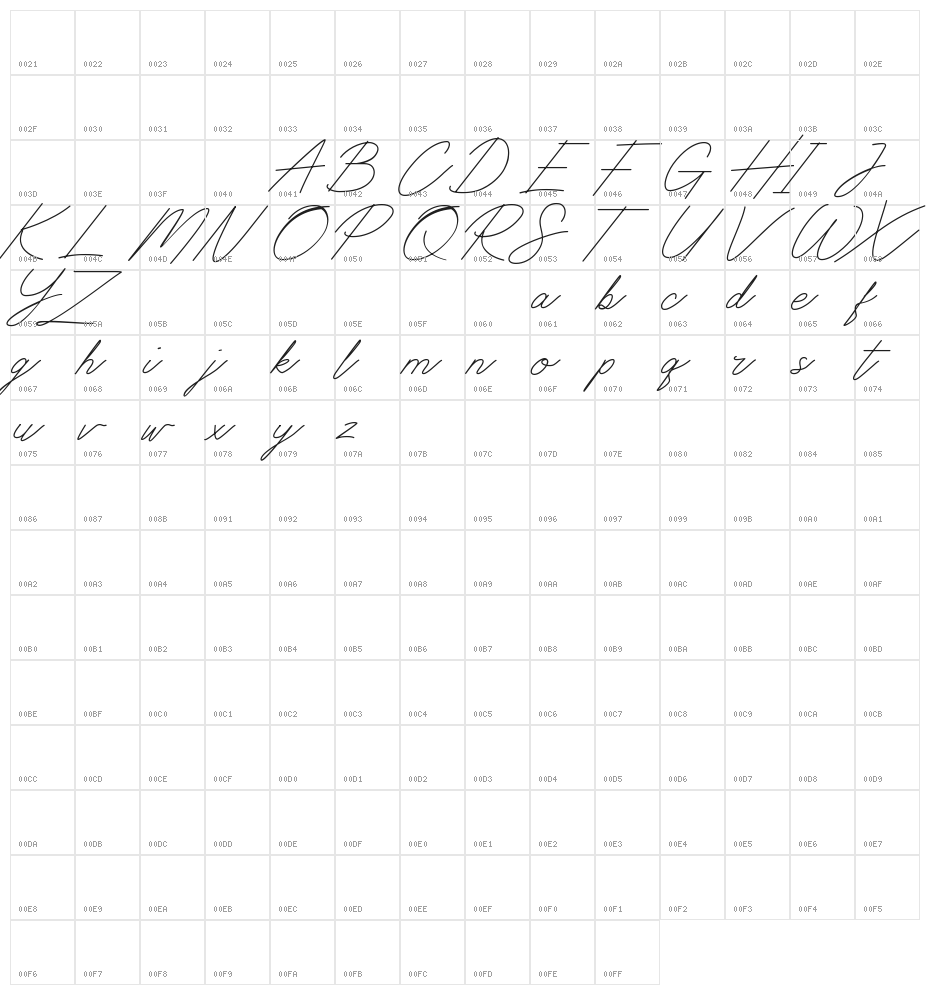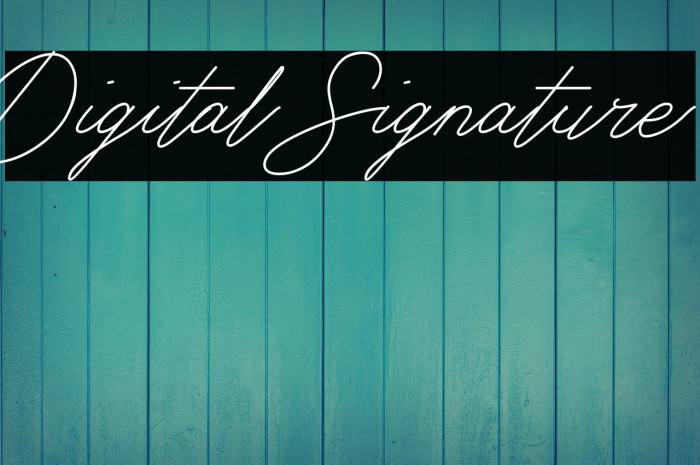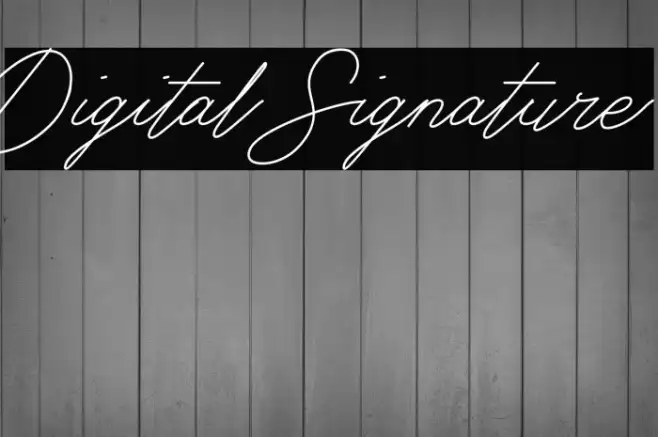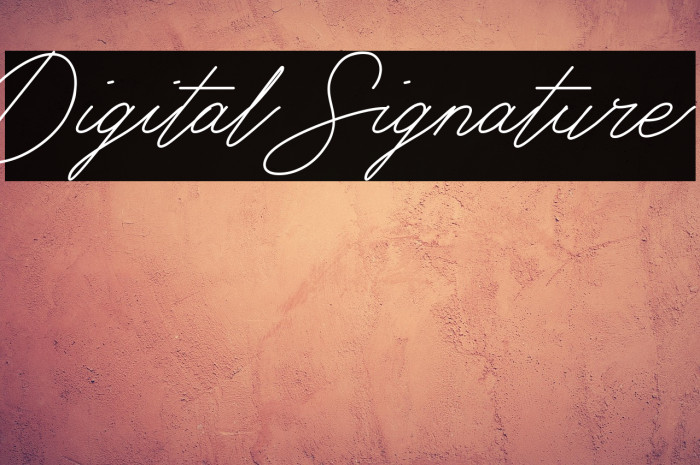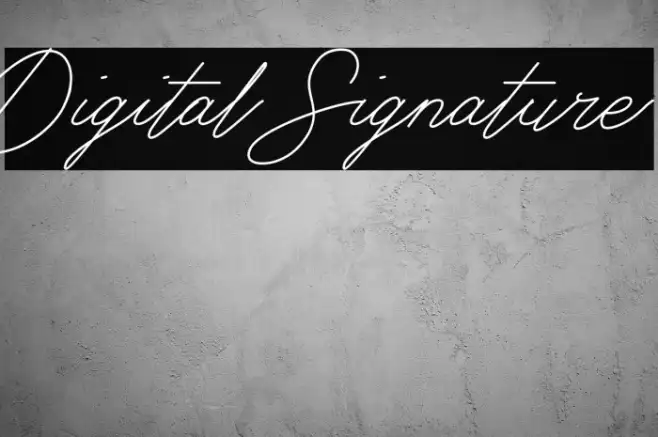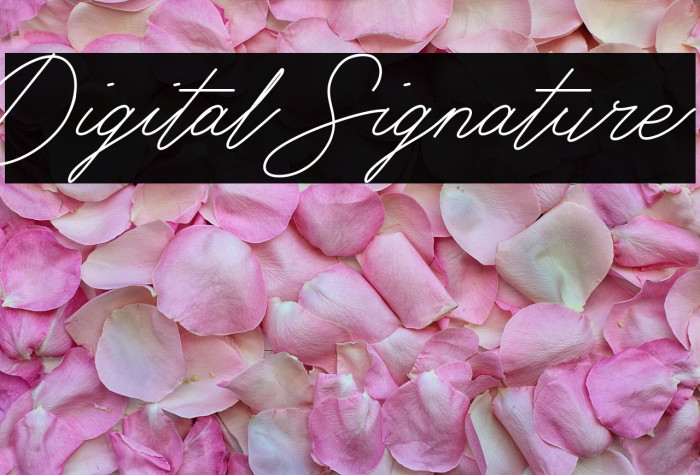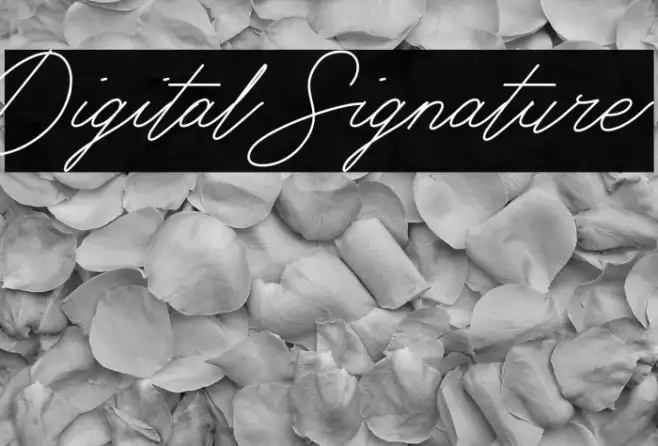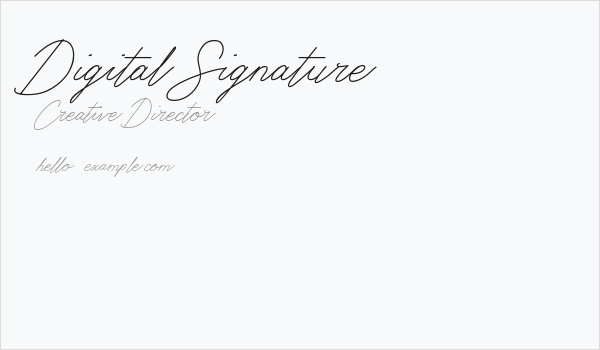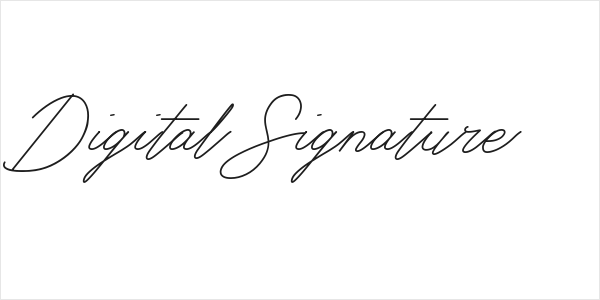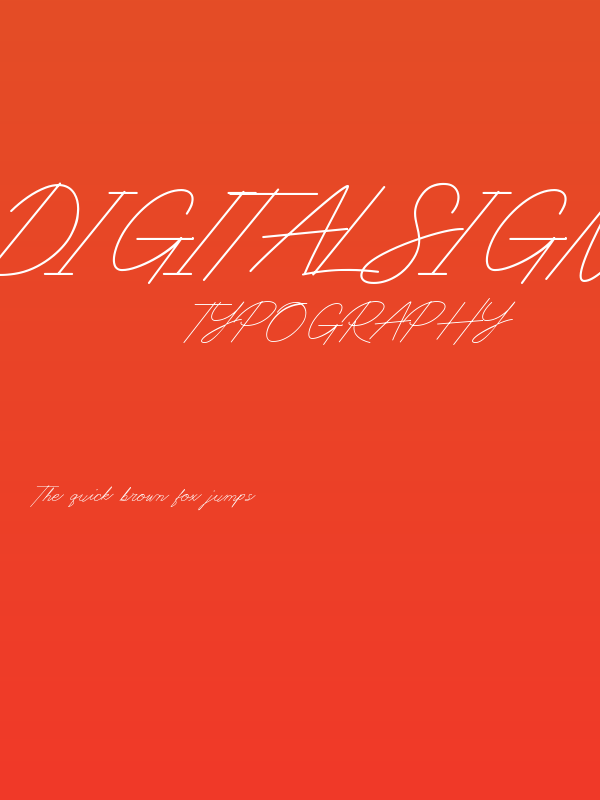
Digital Signature Font
Digital Signature Description
This font features a fluid, cursive style that mimics the elegance of a handwritten signature. The letters are interconnected with smooth, flowing strokes, giving it a dynamic and personal touch. The uppercase letters maintain a consistent height, while the lowercase letters exhibit a slight slant, enhancing the script-like appearance. The overall design is sleek and sophisticated, making it suitable for projects that require a personal or elegant touch. The font's thin lines and delicate curves provide a sense of refinement, while the consistent stroke width ensures readability. This style is ideal for creating a sense of authenticity and individuality in design work.
| Proposed Projects | Ideal for personal branding, invitations, greeting cards, and logo design. |